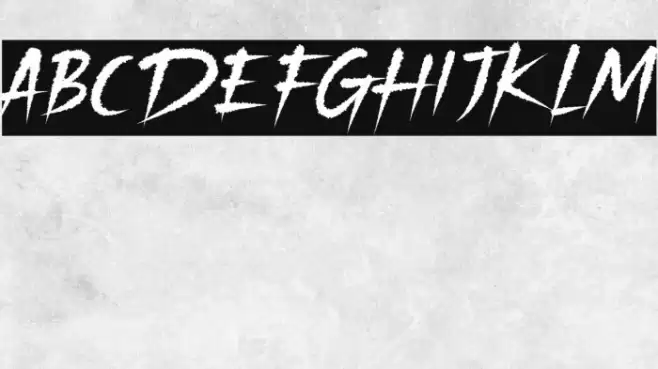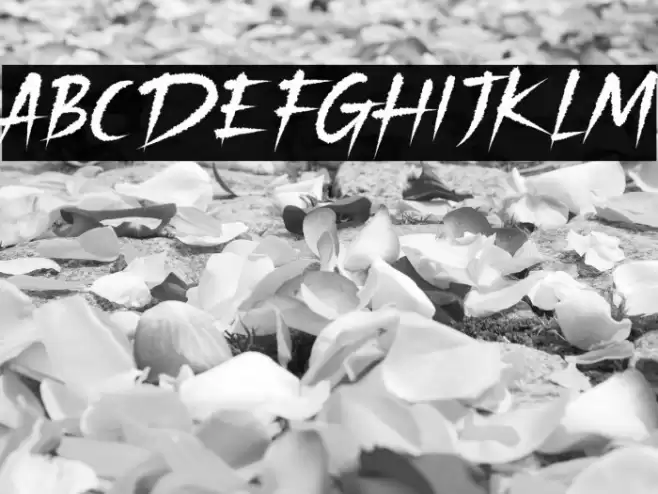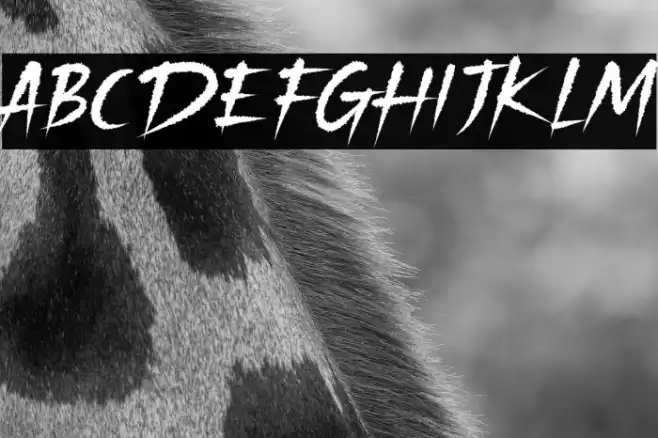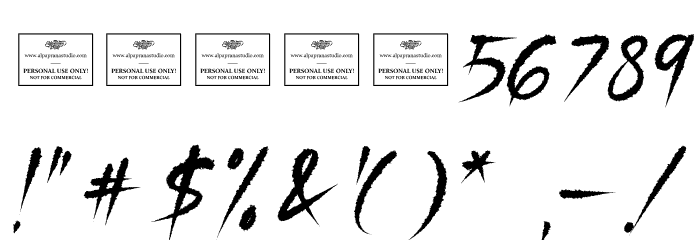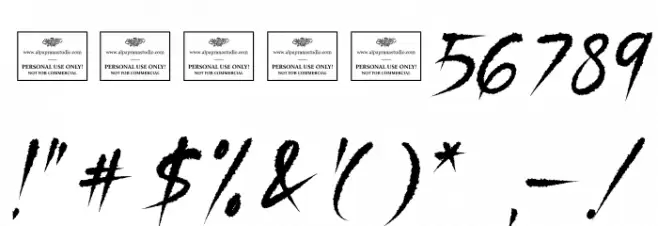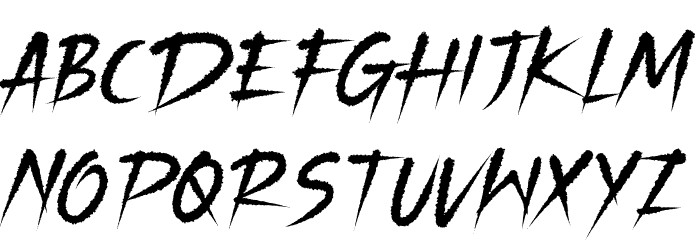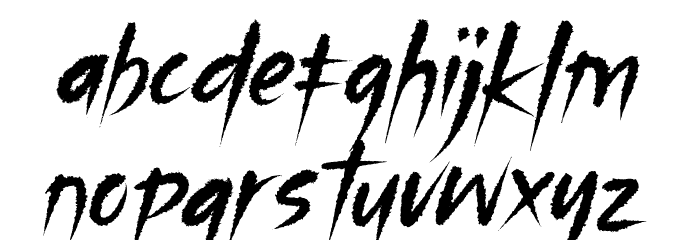
Hallowed Crawler Font
Hallowed Crawler Description
This font features a dramatic and edgy style with sharp, angular strokes that give it a dynamic and intense appearance. The characters are elongated with pointed ends, creating a sense of movement and urgency. The uppercase and lowercase letters maintain a consistent style, while the numerals and special characters complement the overall aesthetic. The font's design is reminiscent of horror or thriller themes, making it suitable for projects that require a bold and striking visual impact.
A dramatic, edgy font with sharp, angular strokes and a dynamic appearance from Uncategorized fonts.
- Font: Hallowed Crawler
- Proposed Projects: Ideal for horror movie posters, Halloween event flyers, edgy branding, and video game titles.